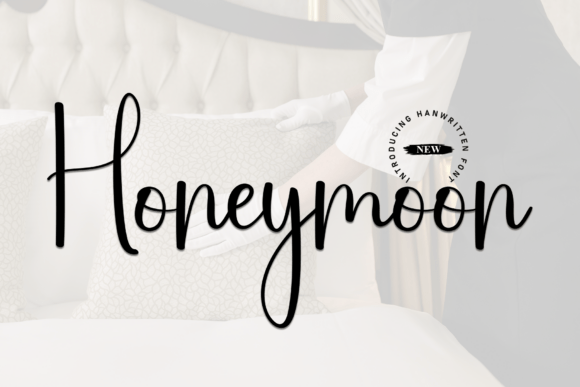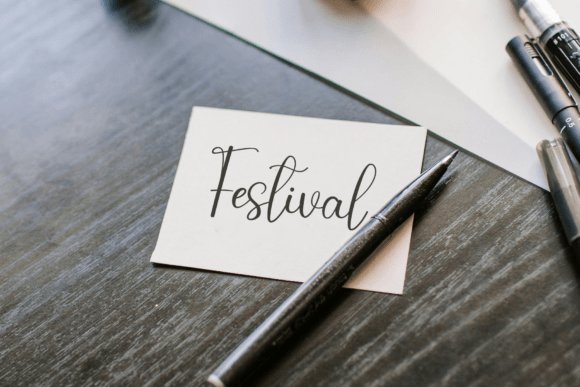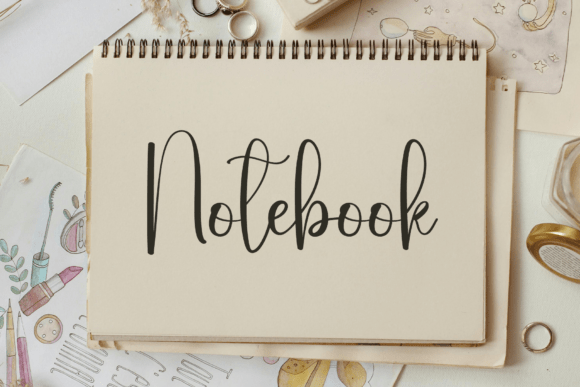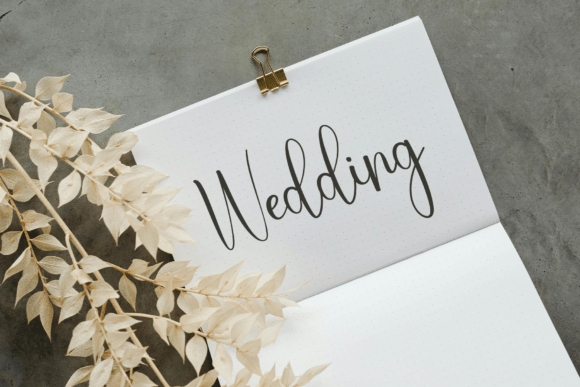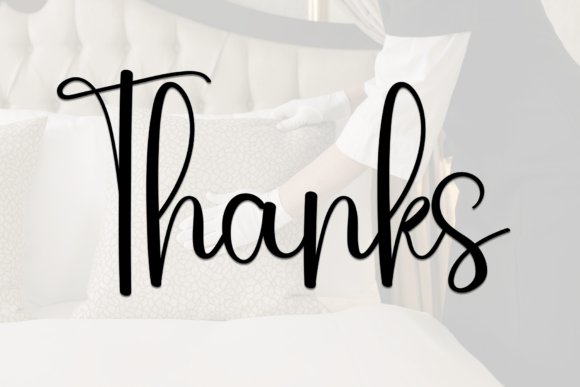
Love at First Sight: Discovering the Magic of Honeymoon Font
The moment when a design concept comes together in a beautiful, unexpected way – it’s a feeling that’s hard to replicate, but oh so exhilarating. For designers, there’s nothing quite like the thrill of spotting the perfect font to elevate a project from good to great. And for those seeking a touch of whimsy and sophistication, the Honeymoon Font is a true showstopper.
This stylish script font is designed to evoke the artistic flair and contemporary elegance of hand-painted calligraphy, with fluid brush strokes and dynamic curves that add a unique, expressive touch to any design. Whether you’re crafting a logo, invitation, or social media graphic, the Honeymoon Font is a versatile and valuable addition to your toolkit, offering both visual impact and a sophisticated, creative flair.
Honeymoon Font Key Features
- Font Family: Honeymoon Font is a script font family, ideal for creating elegant and romantic designs.
- Character Set: The font family includes a wide range of characters, including uppercase and lowercase letters, numerals, and punctuation marks.
- Unique Characteristics: Honeymoon Font features beautiful, flowing connections between letters, creating a sense of elegance and sophistication.
- Font Weight and Style: The font family includes light, regular, and bold weights, as well as italic and oblique styles, providing flexibility for various design applications.
Honeymoon Font Review
Overall, I’d say the Honeymoon Font has its charm, but it’s not without its quirks. Let’s dive in!
- Unique, hand-drawn style that’s perfect for adding a touch of whimsy to your designs
- Good legibility, even at smaller font sizes
- Comes in a range of weights and styles, making it versatile for different design projects
- Lack of consistency in stroke widths, which can make the font look a bit uneven at times
- Not ideal for body text, as it can be a bit too decorative and distracting
- No extensive language support, which might limit its use in multilingual designs
I’d recommend the Honeymoon Font for projects where you want to add a playful, hand-crafted feel. However, it’s not a go-to choice for body text or projects that require a more straightforward, modern look. With some careful usage and styling, it can be a lovely addition to your design toolkit.
Tips for Getting the Most Out of the Honeymoon Font
Here are a few tips to help you get the most out of the Honeymoon Font:
- Use it in combination with other elegant fonts for a romantic look.
- Use it in wedding invitations, save-the-dates, and other wedding stationery for a touch of sophistication.
The Honeymoon Font is commonly used in:
- Wedding photography and photo albums.